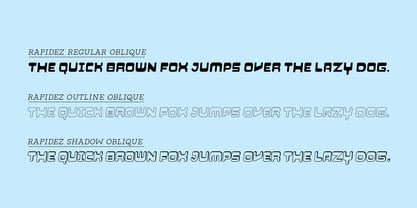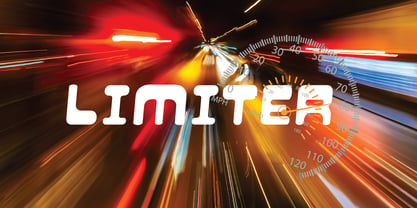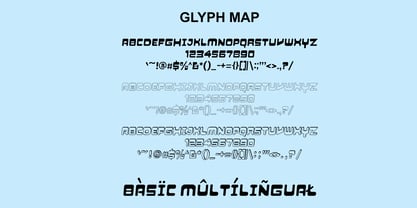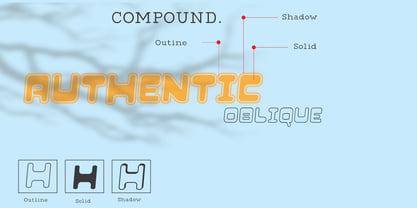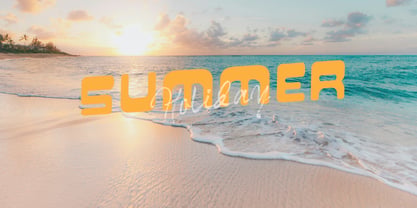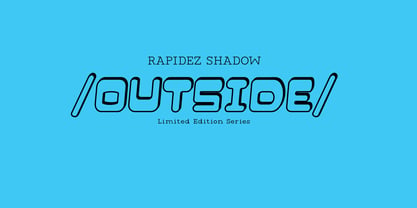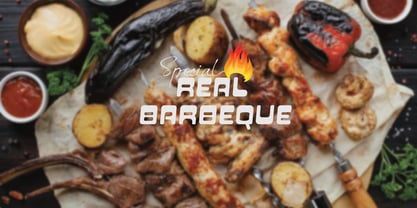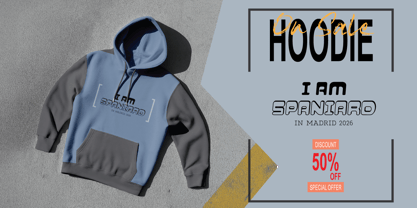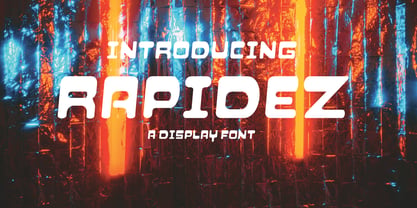
Rapidez
The Rapidez Font Family was designed by Muhammad Suhery and published by Phonnastudio. Rapidez contains 3 styles and family package options. More about this family
Rapidez is a display font comprising three variations, delivering a comprehensive package. These variations include solid, outline, and shadow styles. The font is available in uppercase only. This font is ideal for a variety of projects, including branding, logos, T-shirt designs, game designs, product packaging, product designs, special events, and more. Integrate this distinctive display font into your creative projects to enhance their visual impact.